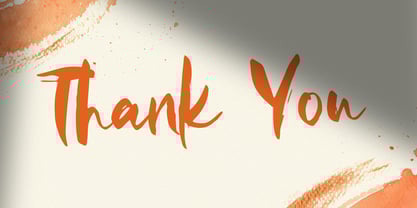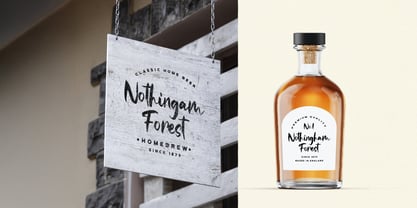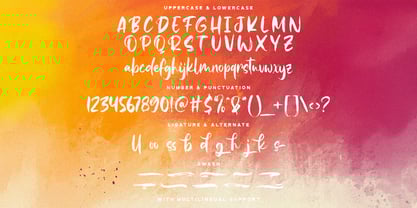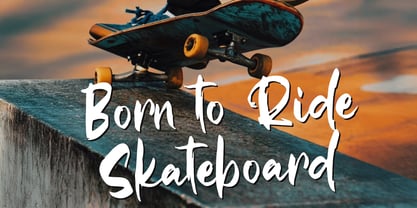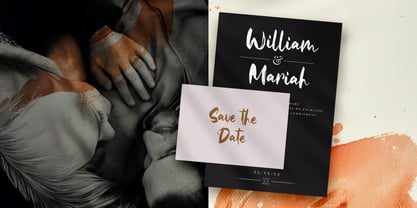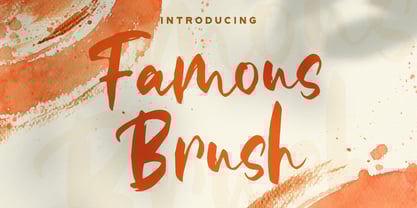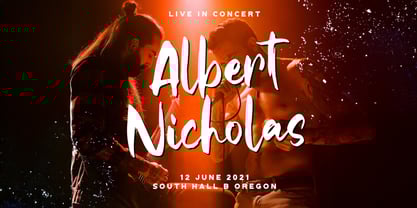
Famous Brush
by Stringlabs Creative Studio
The Famous Brush Font Family was designed by Virgiawan Listanto and published by Stringlabs Creative Studio. Famous Brush contains 1 styles.
Famous Brush is a loud and expressive textured brush font built to make a statement. With its bold strokes, rough texture, and energetic flow, this font captures the spirit of fearless creativity and handcrafted intensity. Perfect for eye-catching designs, Famous Brush brings instant attitude and style to every word ideal for projects that need to stand out and stay remembered.
Designers: Virgiawan Listanto
Publisher: Stringlabs Creative Studio
Foundry: Stringlabs Creative Studio
Design Owner: Stringlabs Creative Studio